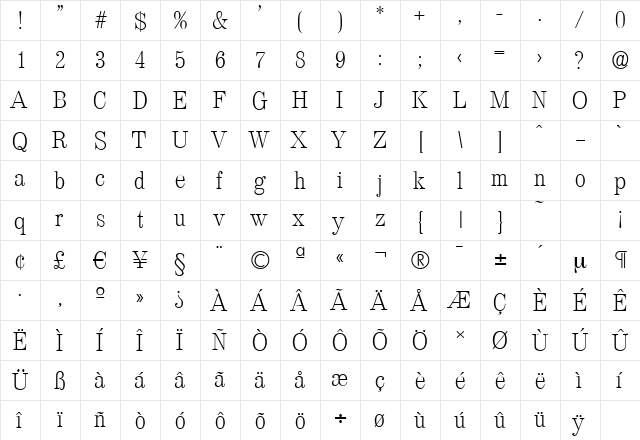
ValenciaSerial-Xlight Regular
Design Context for ValenciaSerial-Xlight Typeface
ValenciaSerial-Xlight takes a measured approach to typography — its balanced proportions and neutral character make it a reliable workhorse for both digital and print work. Its slender proportions lend an understated elegance to any composition.